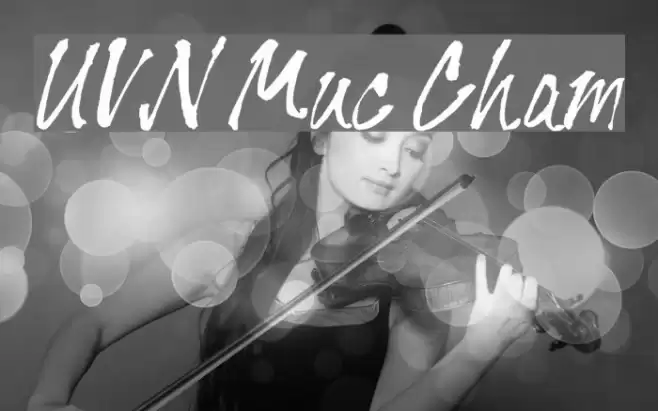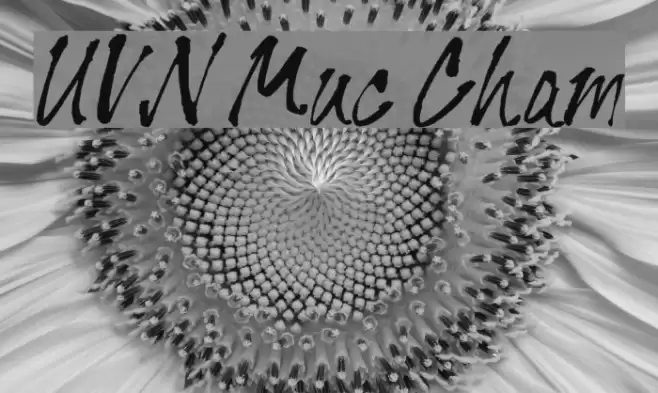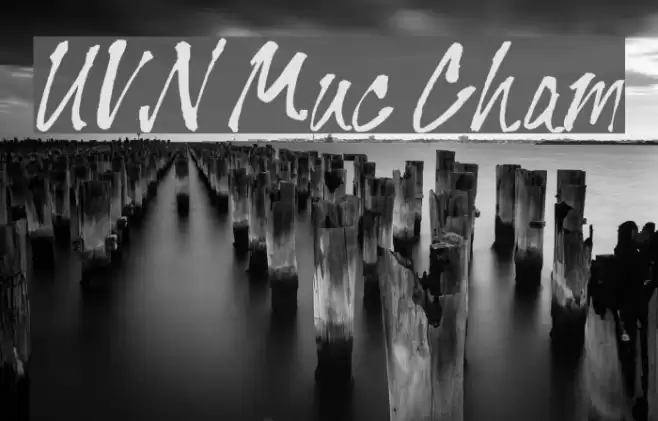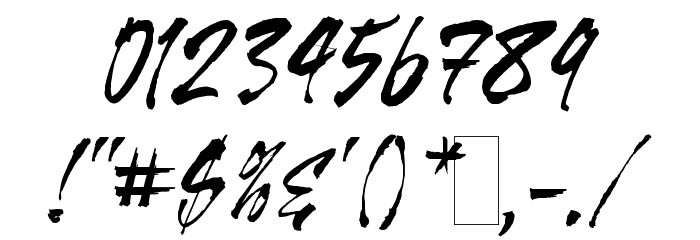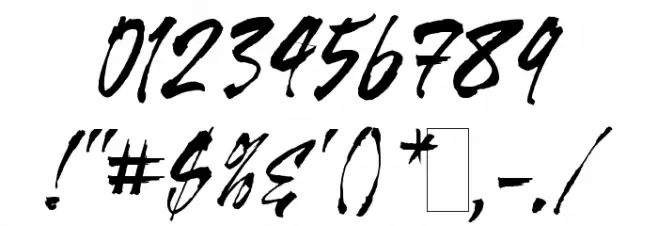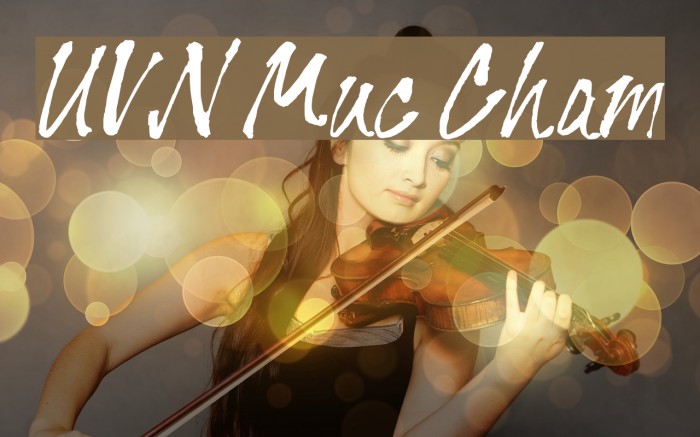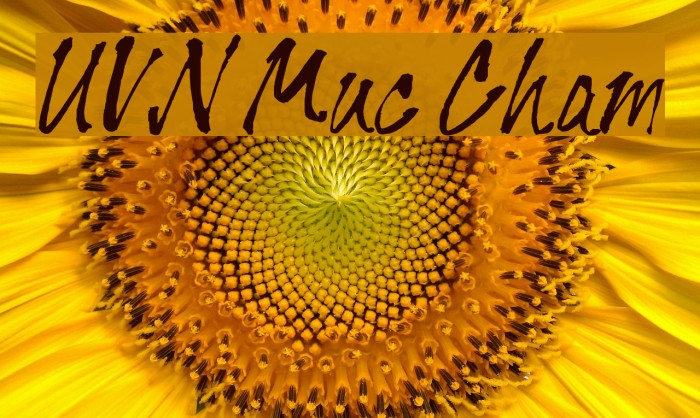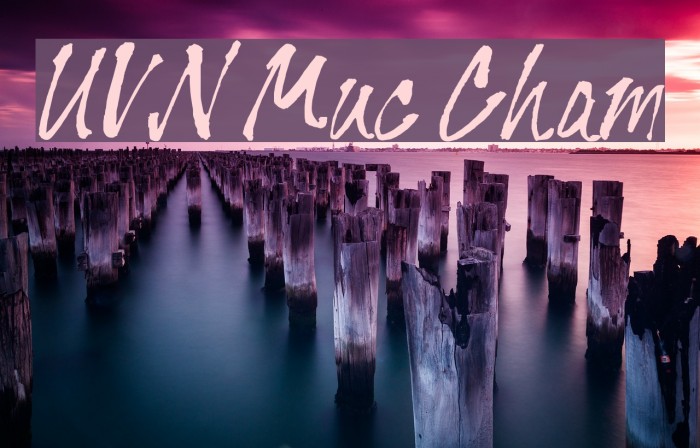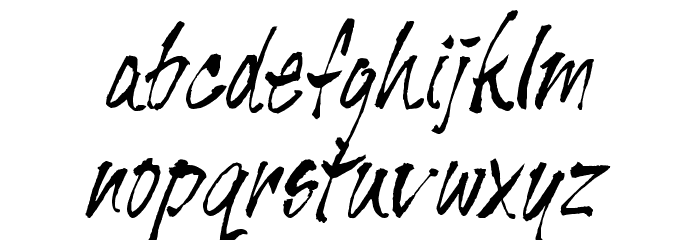
UVN Muc Cham Font
UVN Muc Cham Description
This font exhibits a dynamic and expressive style, characterized by its fluid, handwritten appearance. The strokes are bold and energetic, with a noticeable slant that adds to its lively character. The uppercase letters are particularly striking, with exaggerated flourishes and varying stroke widths that create a sense of movement. The lowercase letters maintain the same energetic feel, with a consistent slant and bold strokes. Numbers and special characters are equally expressive, maintaining the overall aesthetic of the font. This font's unique style makes it stand out, offering a sense of creativity and spontaneity.
A bold, expressive handwritten font with dynamic strokes and a lively slant from Uncategorized fonts.
- Proposed Projects: Ideal for creative projects such as posters, invitations, branding, and artistic designs where a personal touch is desired.
- Use Case: Headlines, Logos, Artistic designs